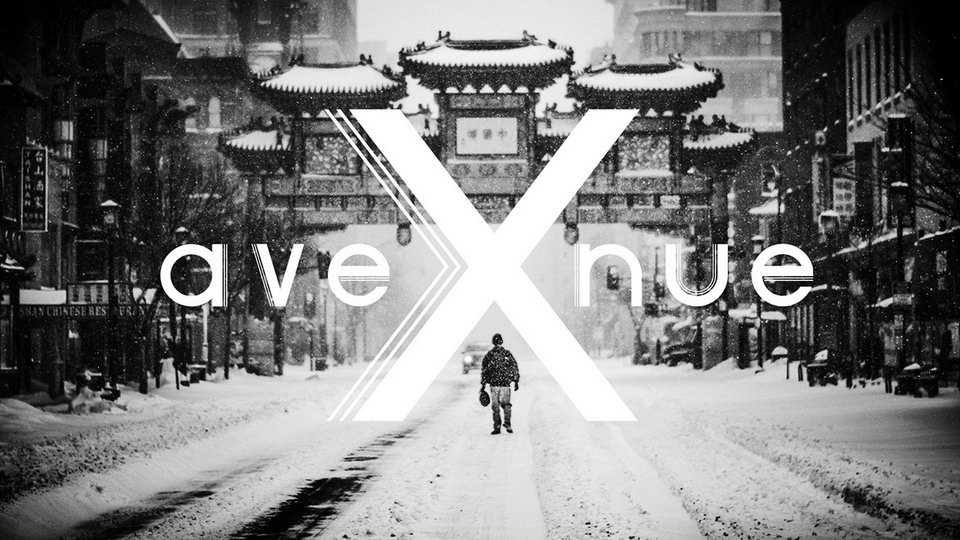
Download Avenue X font, an experimental geometric display typeface that takes inspiration from urban planning. Each character represents a main road or an avenue, couple with a bike/pedestrian lane, and X being an infinite number for the avenues.